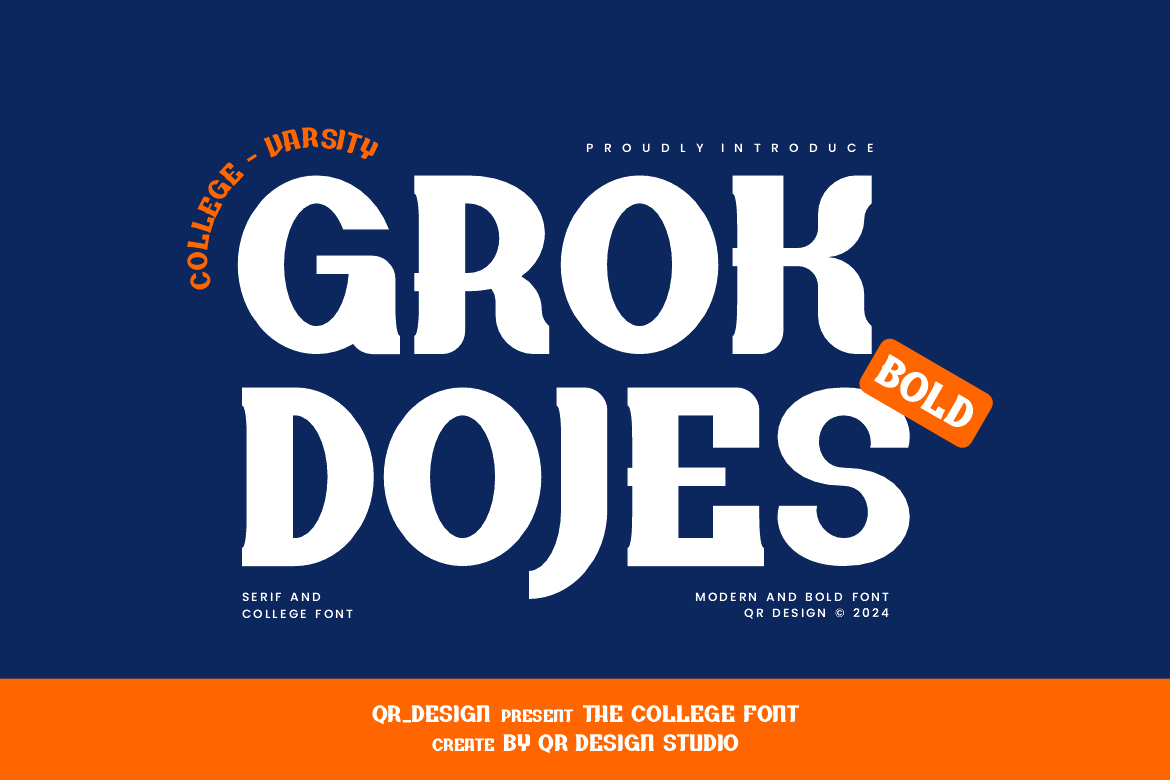
Grokdojes - Varsity & College Font
Grokdojes Font is a serif and authentic display font. The font is suitable for any branding project like poster, logo, sport, and many more. Outstanding in a wide range of contexts.